Best fonts for fashion branding play a crucial role in shaping how a fashion brand is perceived. In the competitive world of fashion and visual design, typography is more than just text; it defines mood, personality, and brand value. From luxury labels to modern streetwear, choosing the right font helps fashion brands communicate identity clearly across logos, editorials, social media, and packaging.
In this article, we’ll explore the 10 best fonts for fashion branding and visual design that work beautifully for logos, lookbooks, social media, packaging, and editorial layouts. Whether you’re building a minimalist luxury brand or a bold contemporary fashion label, these fonts can elevate your visual presence.
Why Fonts Matter in Fashion Branding
Typography in fashion branding influences how a brand is perceived as luxurious, edgy, feminine, modern, or timeless. The right font helps create a strong emotional connection while maintaining readability and versatility.
A well-chosen font can:
- Strengthen brand recognition
- Communicate brand personality
- Enhance visual consistency
- Elevate perceived value
1. Rockqa Elegant Serif Typeface
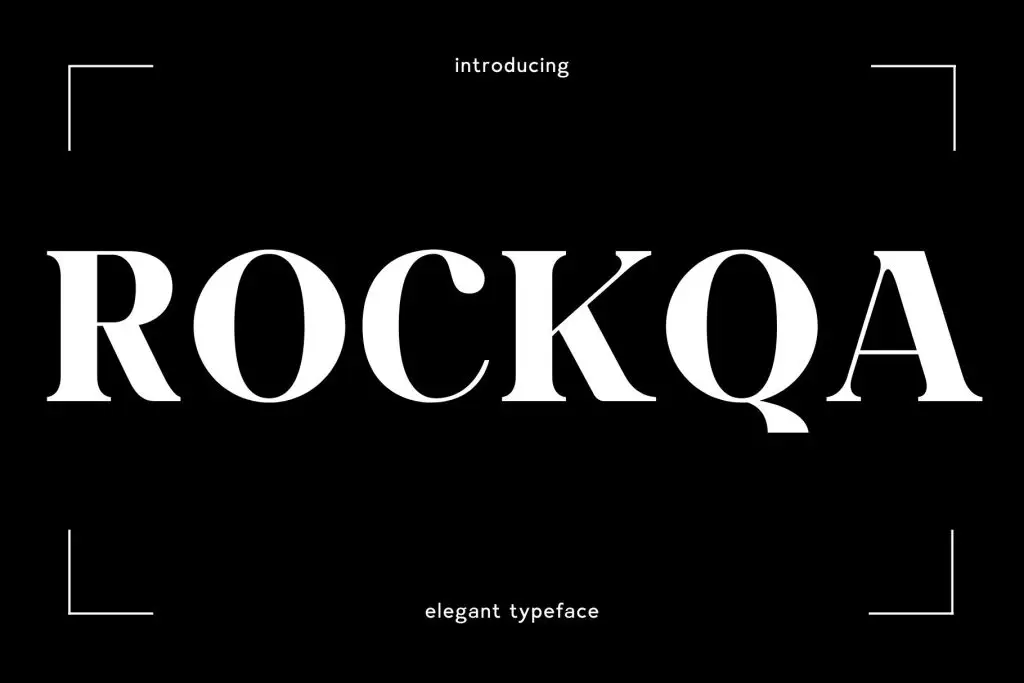
Rockqa is an elegant serif font that brings sophistication and modern style to your designs. Perfect for fashion, branding, and web projects, it enhances your typography with timeless charm.
2. Viona Collins Modern Serif Typeface
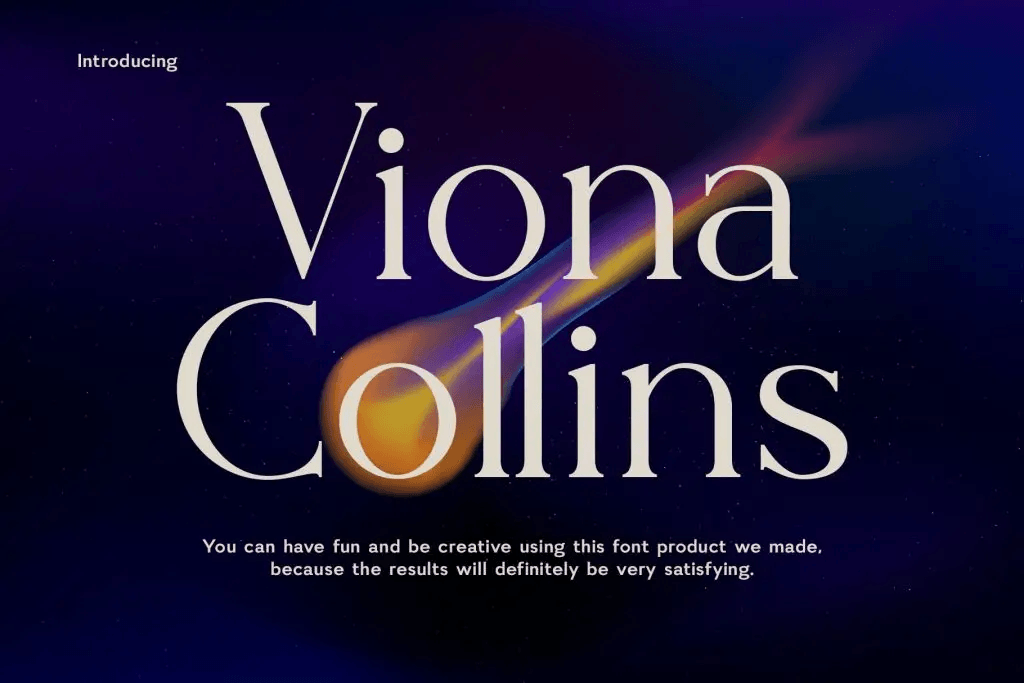
Viona Collins is a modern serif font that balances elegance and modernity. Perfect for fashion, jewelry, and branding, it enhances any creative project with refined sophistication.
3. Saquero Modern Serif
Saquero is a modern serif font that combines contemporary style with timeless elegance. Ideal for beauty, fashion, web design, and creative projects, it elevates your typography with sophistication and refined charm.
4. Tracey Jodgey Sans Typeface
Tracey Jodgey is a modern sans-serif font that blends elegance with contemporary style. Ideal for beauty, fashion, social media, and creative projects, it elevates your typography with refined sophistication.
5. Schindler Modern Serif Typeface
Schindler is a modern serif font with elegant and meticulously crafted letters. Ideal for beauty, fashion, social media, and versatile design projects, it adds sophistication, polish, and a contemporary flair to your creative work.
6. Fishera Modern Serif Typeface
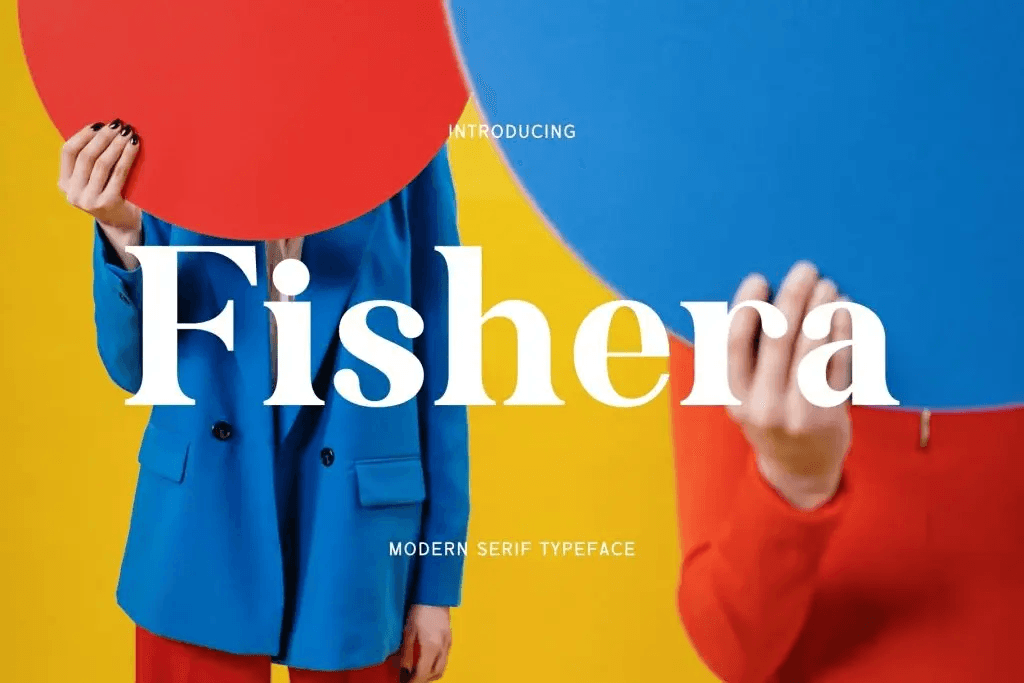
Fishera is a modern serif font with elegant, meticulously crafted letters. Ideal for beauty, fashion, advertising campaigns, and social media designs, it brings refined sophistication and timeless style to any creative project.
7. Beatrice Elegant Sans Font
Beatrice is a modern and bold sans serif font ideal for wedding invitations, fashion designs, social media posts, and creative projects. Elegant, versatile, and impactful.
8. Gavoline Modern Sans Typeface
Gavoline is a modern and bold sans-serif font ideal for wedding invitations, fashion designs, social media posts, and creative projects. Elegant, versatile, and impactful.
9. The Cilla Stylish Serif Font
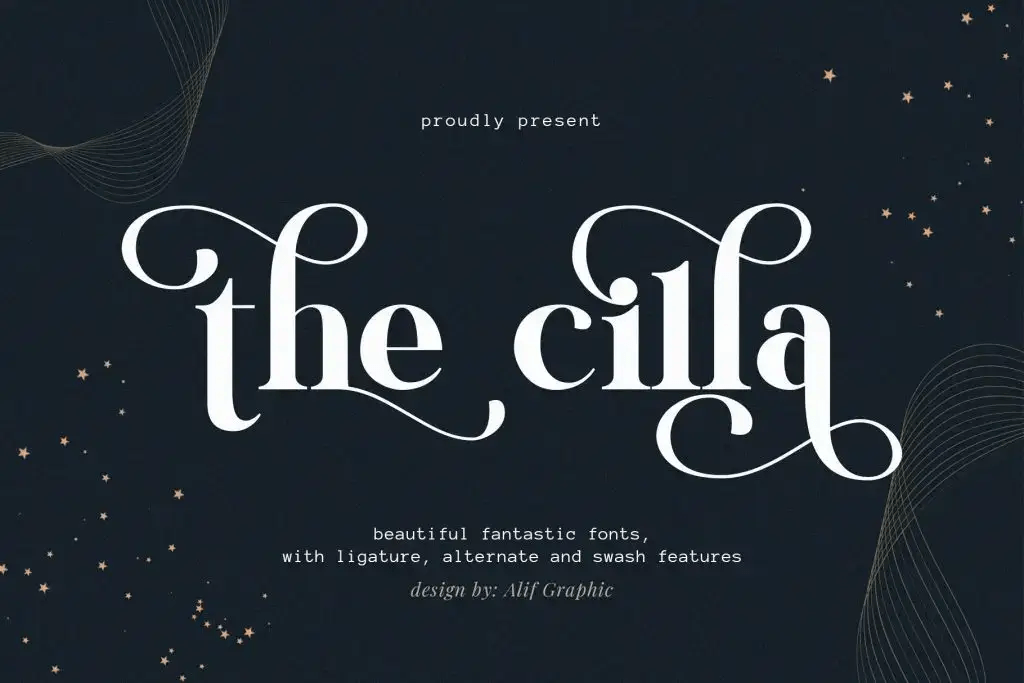
The Cilla is a stylish, bold serif font ideal for wedding invitations, fashion designs, social media posts, photography, and creative projects. Elegant and versatile.
10. Souldjer Beautiful Thin Sans
Souldjer is a beautiful thin sans font blending modern elegance with clean, precise letterforms. Ideal for web, fashion, and creative designs.
How to Choose the Best Fonts for Fashion Branding
Fashion Branding Fonts vs Editorial Fonts
Fashion branding fonts are designed to create a strong visual identity, while editorial fonts focus more on readability and storytelling. The best fashion brands often combine both to achieve balance.
Choosing the best font for fashion branding depends on your brand personality, audience, and usage. Before deciding, consider:
- Your brand tone (luxury, streetwear, minimalist, feminine)
- Where the font will be used (logo, website, social media)
- Long-term brand consistency
Final Thoughts
Typography is a powerful branding tool in the fashion industry. The right font can elevate your brand identity, communicate your values, and create a lasting impression. From elegant styles like Viona Collins and Schindler to bold choices like Rockqa and Souldjer, each font on this list offers unique strengths for fashion branding and visual design.